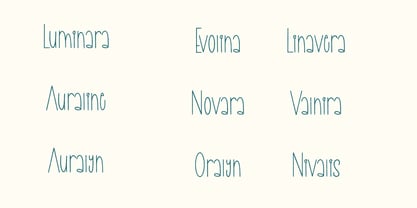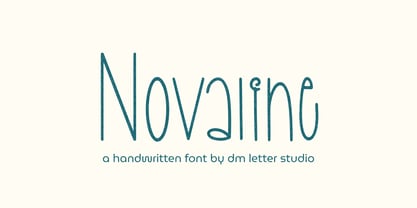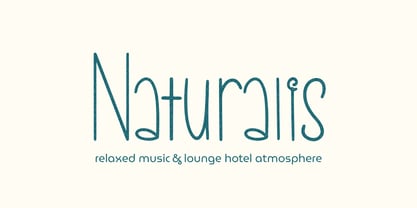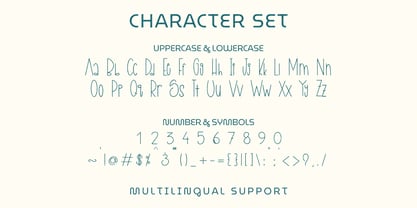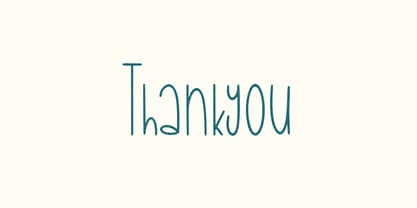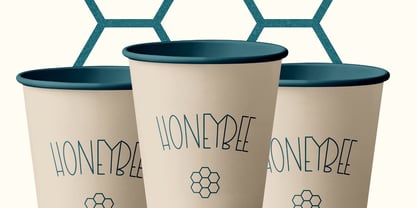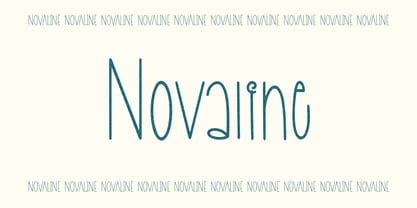
Novaline
The Novaline Font Family was designed by Dimas Prasetyo and published by DM Studio. Novaline contains 1 styles. More about this family
Meet Novaline, the Monoline Display Font Novaline is a thin, tall monoline font with a soft feminine personality and a unique silhouette. The strokes are clean and consistent, creating a delicate look that feels modern and refined. Its tall proportions give your layouts an elegant vertical rhythm, while the subtle curves add a girly touch without feeling overly decorative. Use Novaline for beauty branding, fashion logos, packaging, social media headers, invitations, and lifestyle designs. As a result, your typography feels graceful, light, and confidently distinctive. Why Novaline sells First, Novaline installs quickly and works smoothly in Canva, Photoshop, and Illustrator. Next, the thin monoline structure keeps designs looking minimal and high-end. Then the tall letterforms help brand names stand out instantly in logos and headlines. Moreover, feminine modern fonts are always in demand for boutique businesses, beauty products, and personal brands. Therefore, Novaline fits perfectly in stylish, trend-forward collections. Fast layouts with the Novaline Font Start with brand names or short phrases to highlight the tall structure. After that, pair Novaline with a clean sans serif for body text or a soft script for contrast. Because the strokes are thin, use strong color contrast to maintain readability. In addition, try increasing letter spacing slightly for an airy, luxury feel. Finally, save palettes like blush and ivory, nude and charcoal, lilac and cream, or black and soft gold for cohesive feminine branding sets. Creative uses and quick wins Beauty and skincare logos Fashion branding and boutique packaging Social media quotes and aesthetic posts Wedding stationery and minimal invitations What you get Uppercase and lowercase letters Numbers and basic punctuation Design tips for Novaline Use Novaline for headlines and brand marks rather than long paragraphs. Also, avoid shrinking it too small since thin strokes need space to stay crisp. For print, export at 300 DPI to preserve clean edges. For digital use, scale slightly larger so the tall thin lines remain sharp on mobile screens. Finally, keep effects subtle and let the minimal elegance shine.
Designers: Dimas Prasetyo
Foundry: DM Studio